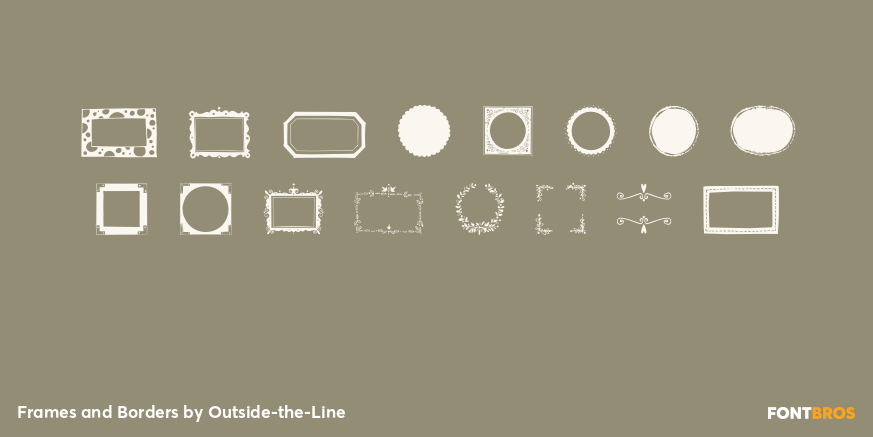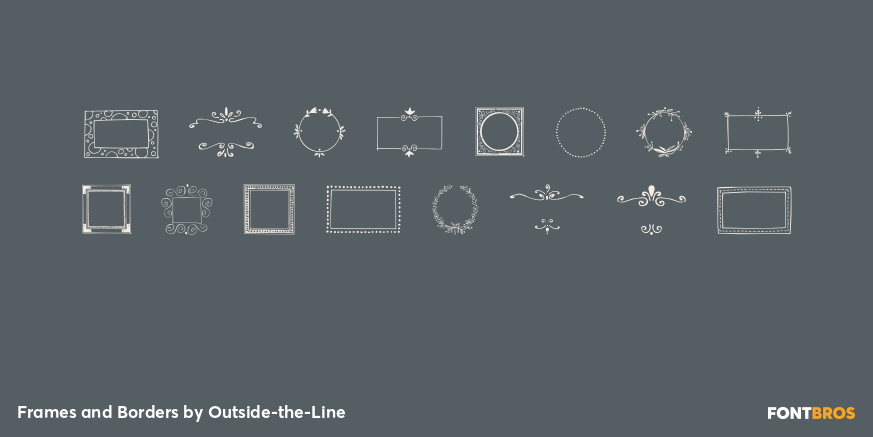
Frames and Borders
Font Family by Outside-the-Line
Frames and Borders is a decorative dingbat family filled with vintage, Victorian-inspired ornaments, from elegant filigree and scrollwork to cartouches, labels, badges, and ornamental frames. The look is distinctly black-and-white and silhouette-driven, making it an easy way to add classic detail and old-fashioned character to a layout.
With 2 included styles—Frames and Borders and Frames and Borders Too—this family is especially useful for packaging, stationery, invitations, labels, certificates, signage, and decorative display pieces that need a refined border or flourish. It also works well for craft projects, logo accents, and branding that leans vintage rather than plain.
Created by Outside-the-Line, this set gives designers a focused collection of ornamental elements that can help frame text, build standout compositions, or add a polished finishing touch without overwhelming the main design.